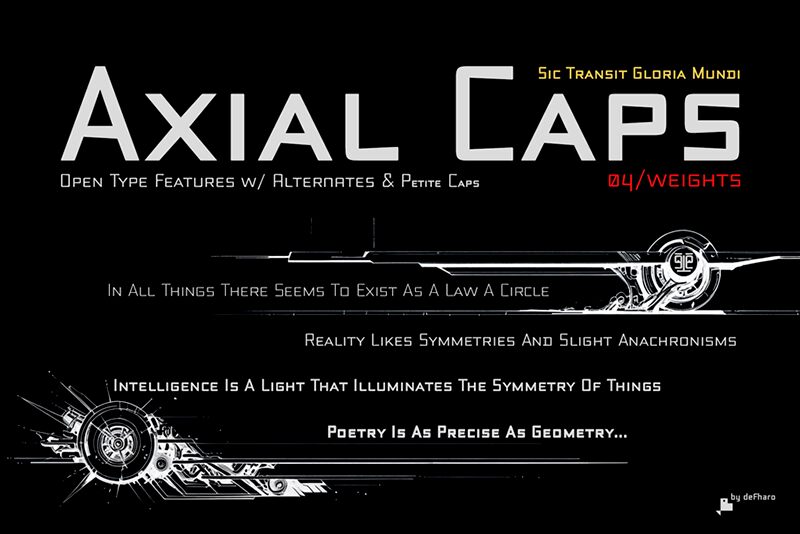
Axial Caps Medium
Axial Caps Medium font by Fernando Haro of deFharo is a sleek, expanded sans serif with a modern and geometric display. Its sharp features make it stand out while maintaining a minimalist appearance. Each character has clean lines that directly contribute to the overall futuristic style of the font.
Such an artistic rendition would work perfectly for branding, t-shirt design, patch design, book covers, posters, music albums, event invitations and flyers. It can also be used in logotype projects and other cool graphic design work.
Sans serif typefaces in capitals, a contemporary and rounded evolution where the letters are built on an axial axis.
Trapezoidal counter-shapes, joints with reduced stems correct optical effects in small sizes and make the typeface more legible, while in large sizes it stands out for its original shapes.